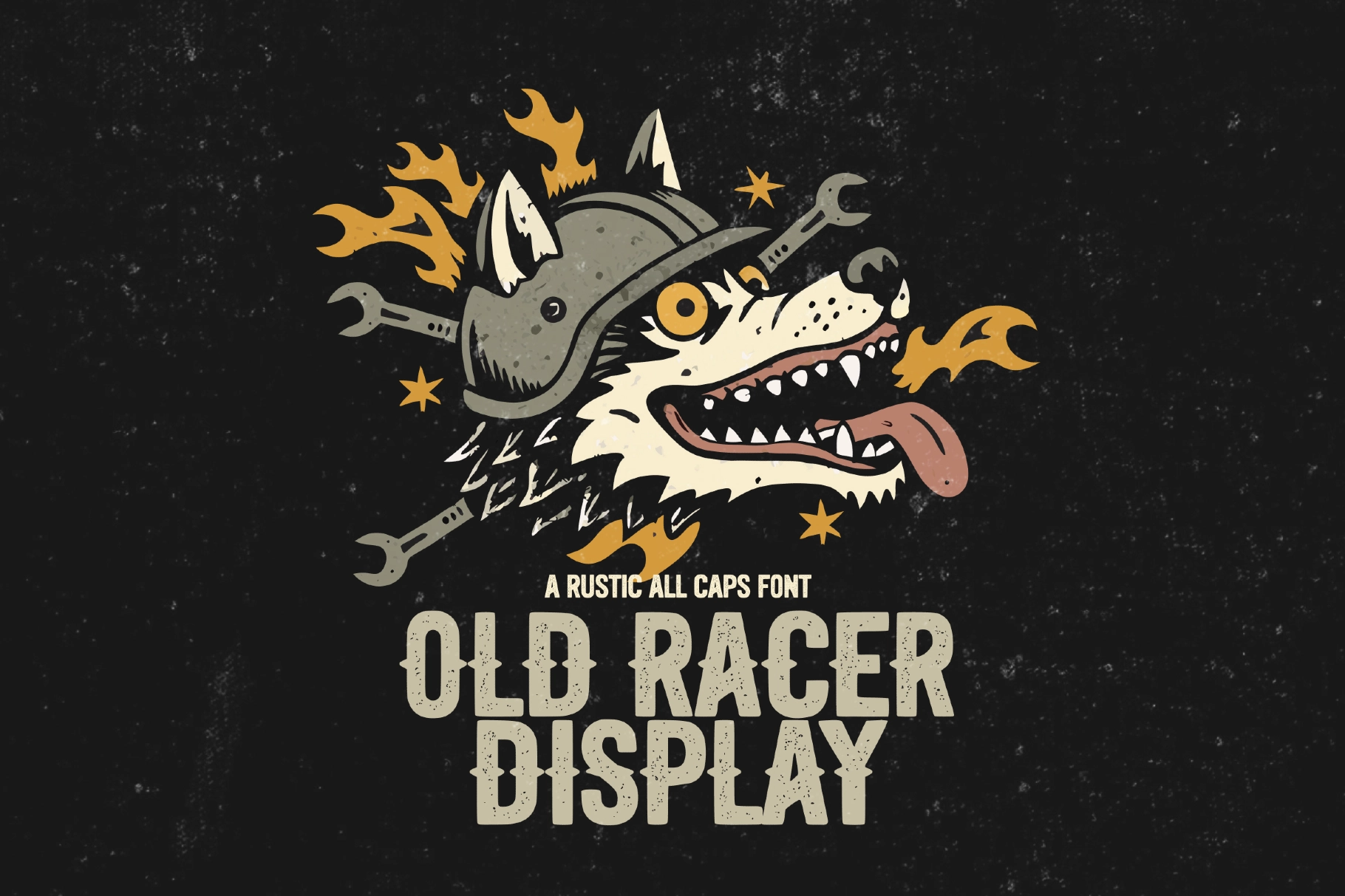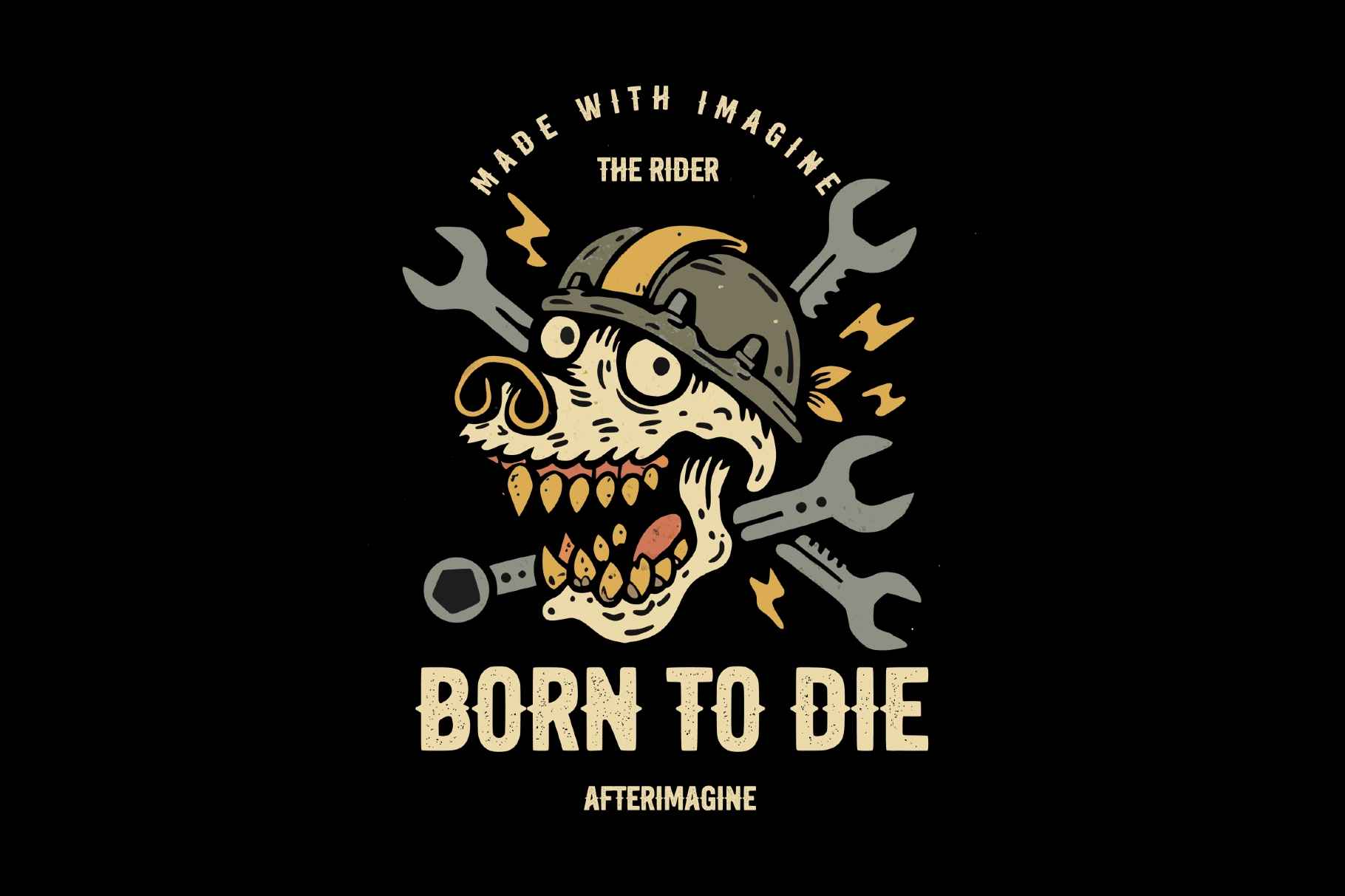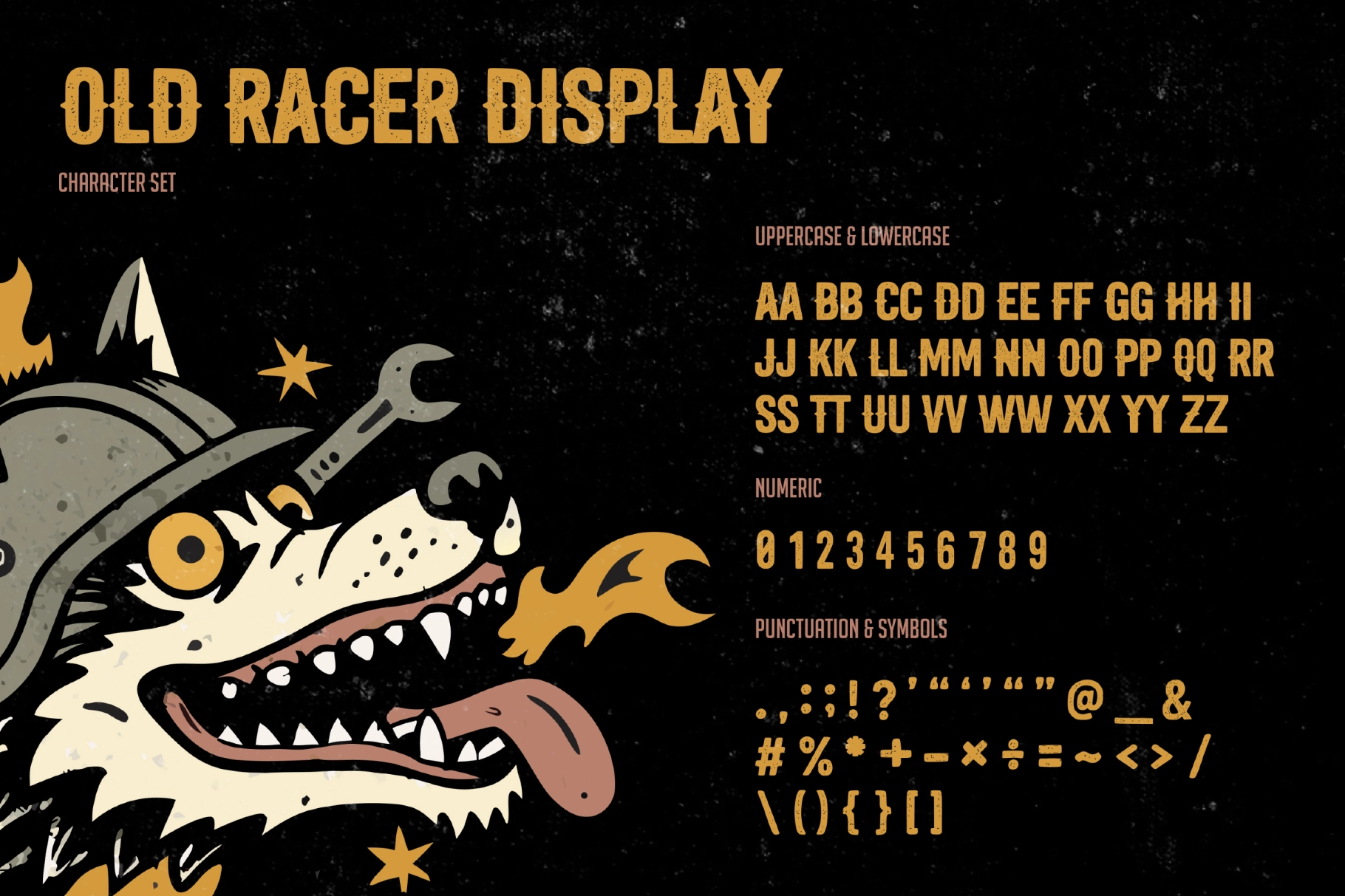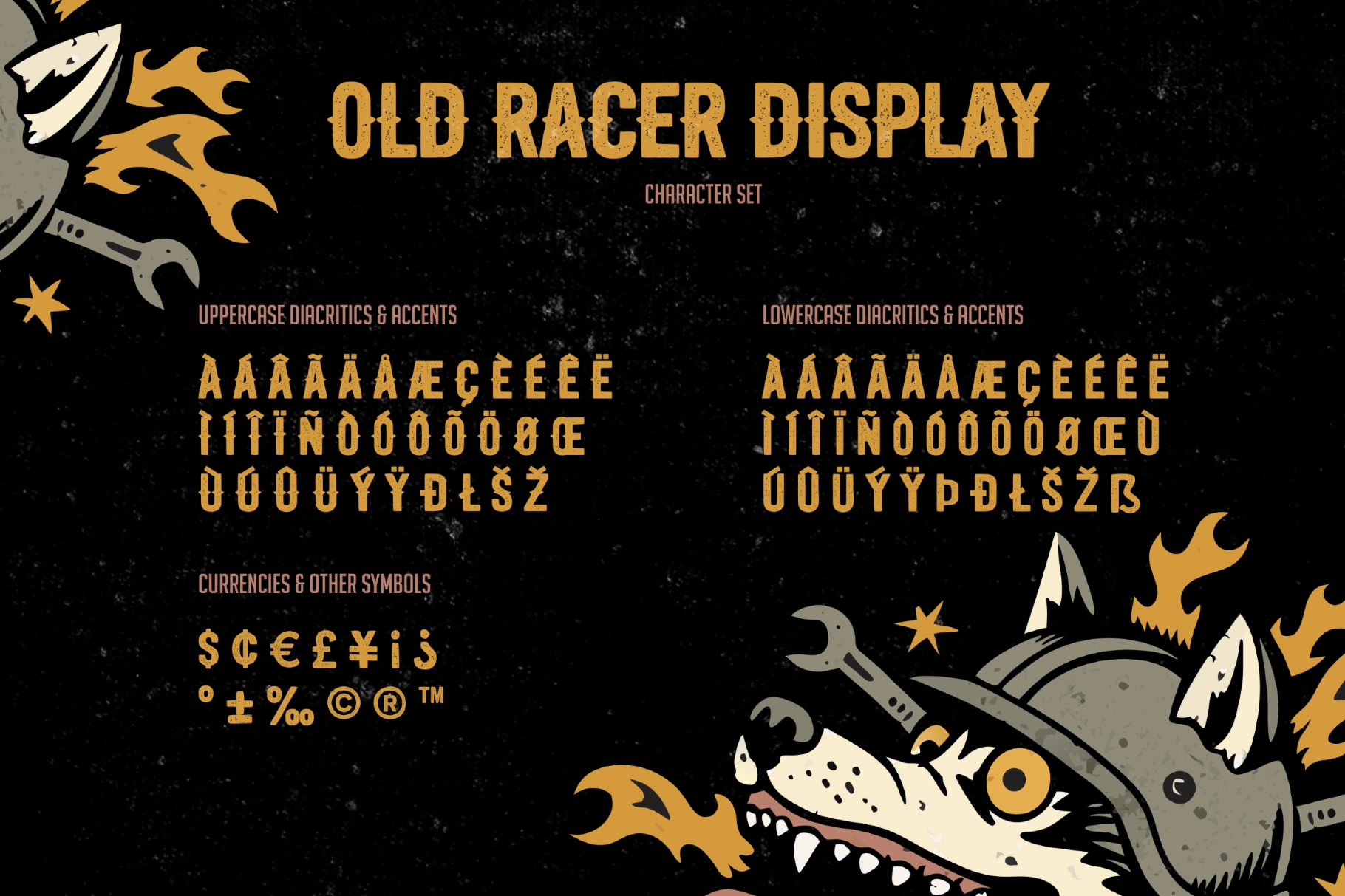
Old Racer Display
Old Racer is a bold display font inspired by retro motobike and classic signage. Featuring strong curves and rugged strokes, it brings a hand-drawn feel along with a distinctive rough and vintage feel. Perfect for posters, logos, ads, packaging and branding that channel rustic, strength, and old-school style. Ideal for any creative project that needs bold, character-driven typography.